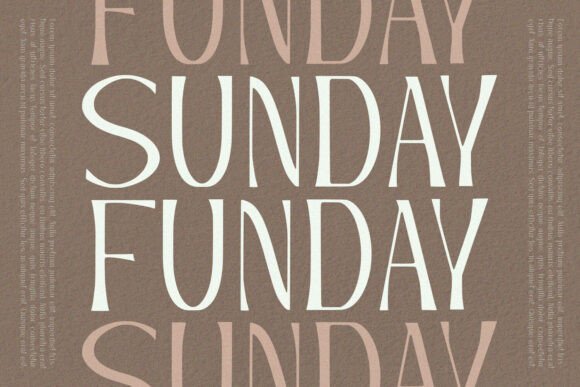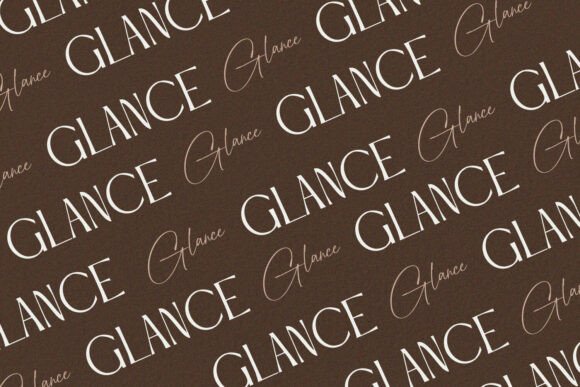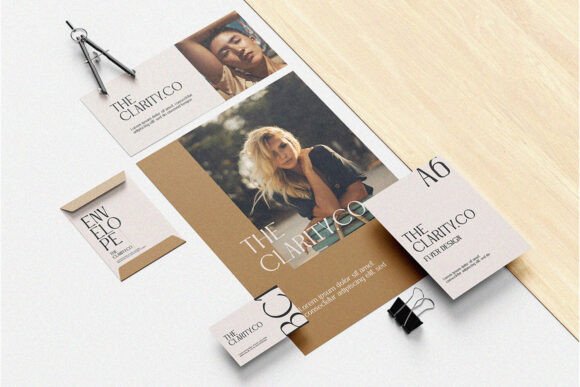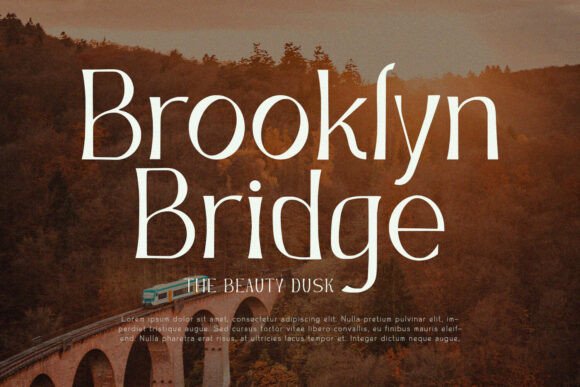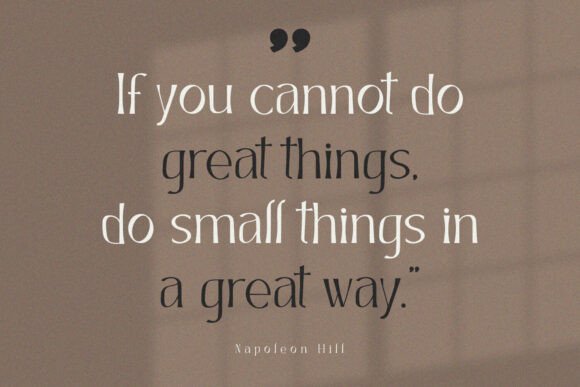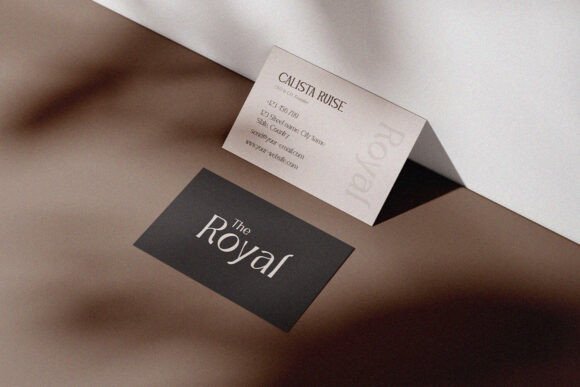
Introduction to Chelmsford Font
Chelmsford is display serif font with elegant and modern feels.
It will be perfectly used for magazines, packaging, posters, shopping bags, t-shirts, book covers, photography, special events and other design projects .
Key Features of Chelmsford Font